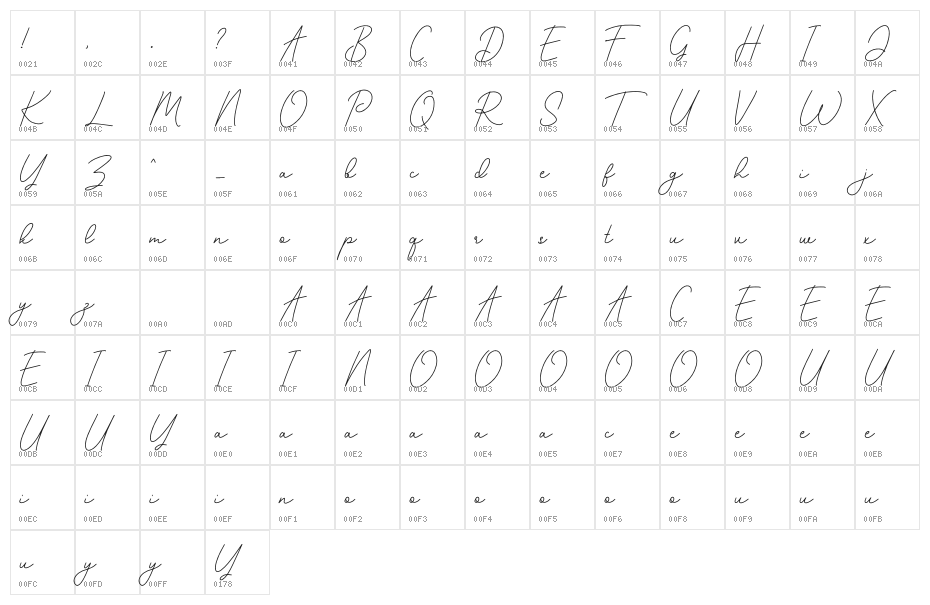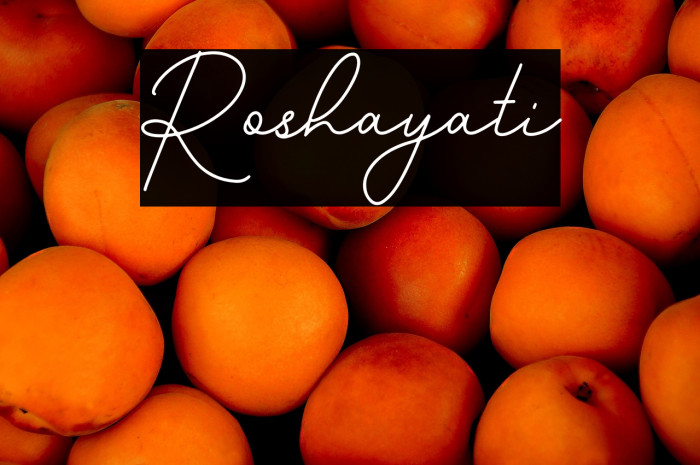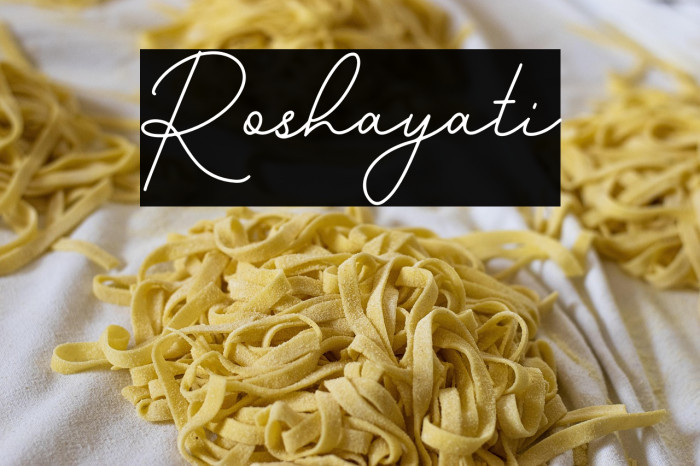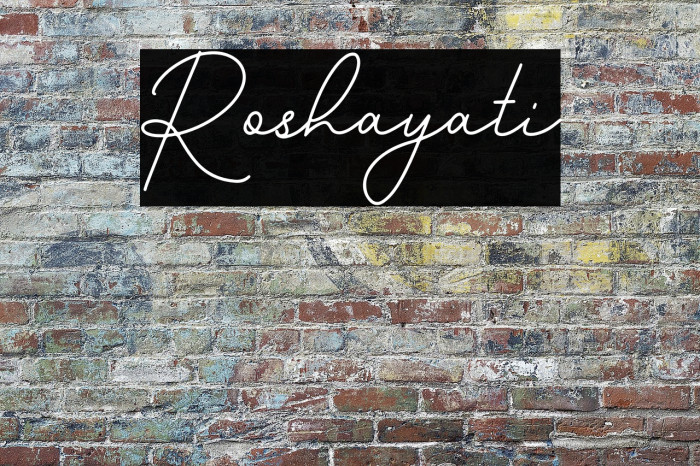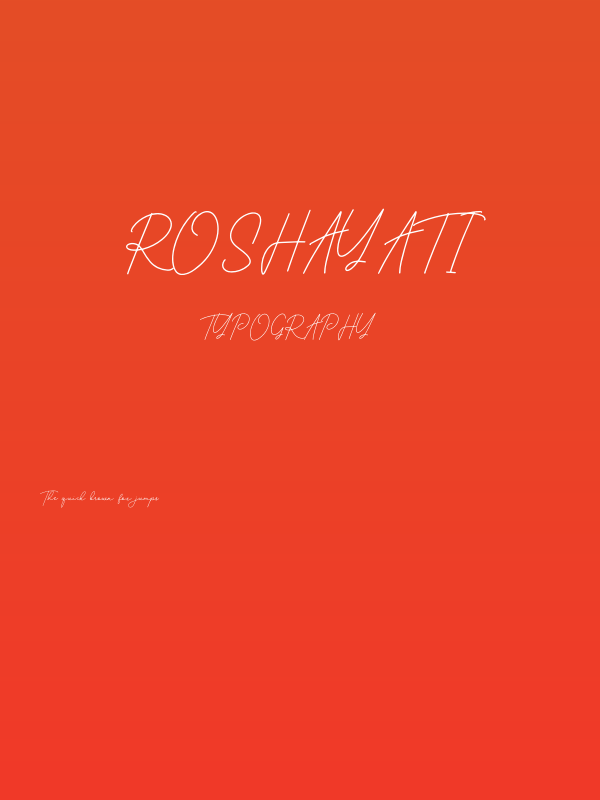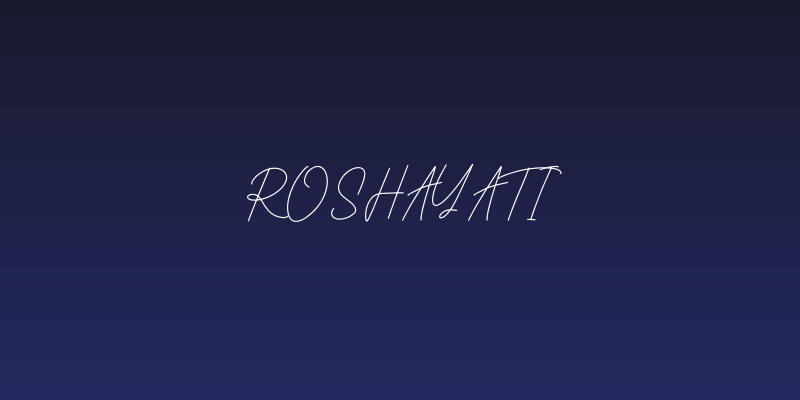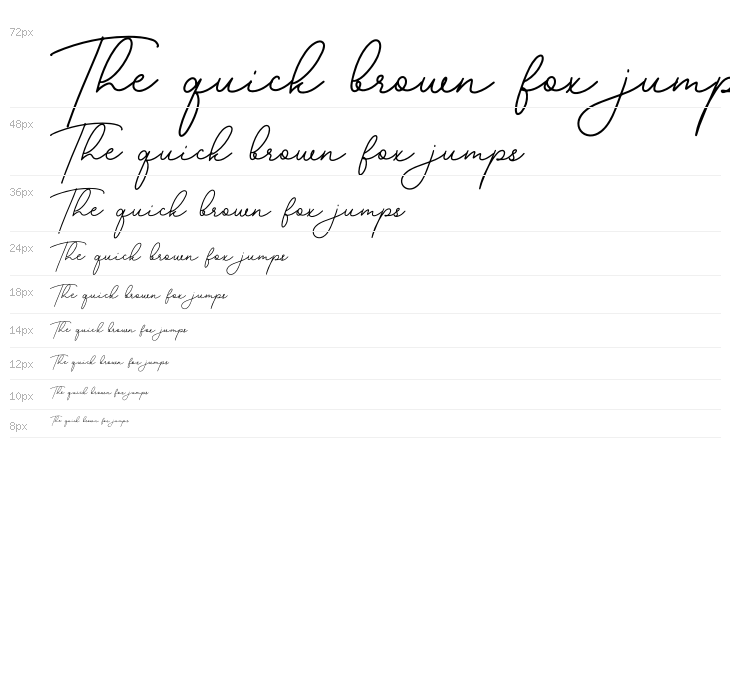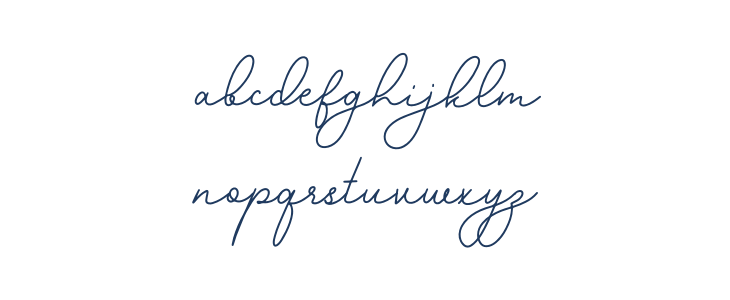
Roshayati Font
Roshayati Description
This font features a delicate and flowing script style, characterized by its elegant and smooth curves. The uppercase letters are tall and slightly slanted, giving a sense of movement and grace. The lowercase letters are connected, enhancing the cursive appearance and providing a seamless flow between characters. The overall design is sophisticated, making it suitable for formal and decorative purposes. The absence of special characters and numbers suggests a focus on alphabetic representation, ideal for artistic and personalized projects.
| Proposed Projects | Ideal for wedding invitations, elegant branding, personalized stationery, and artistic projects. |